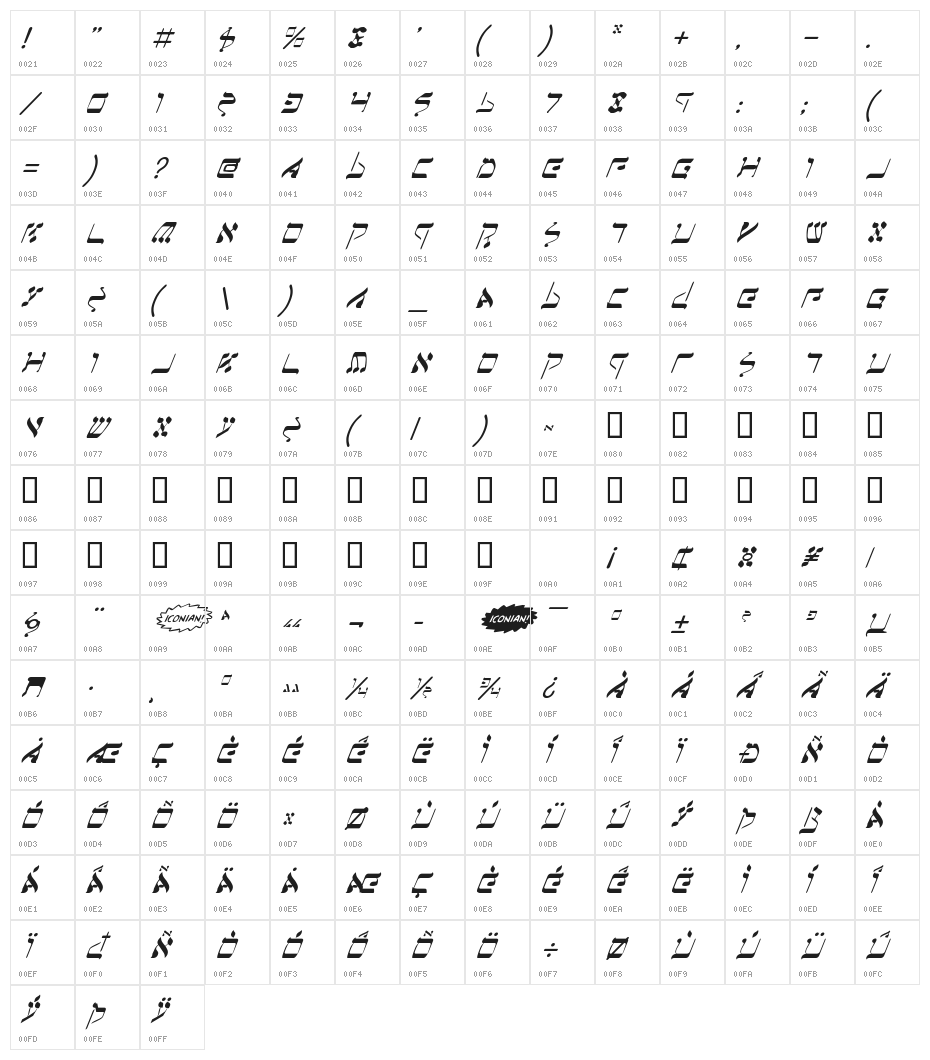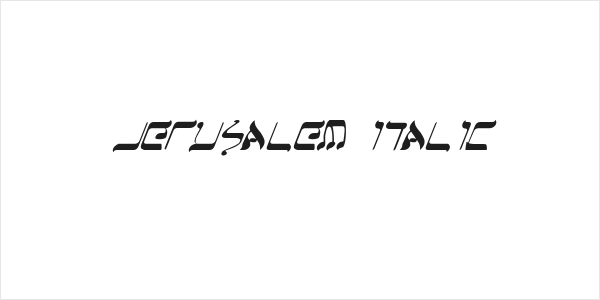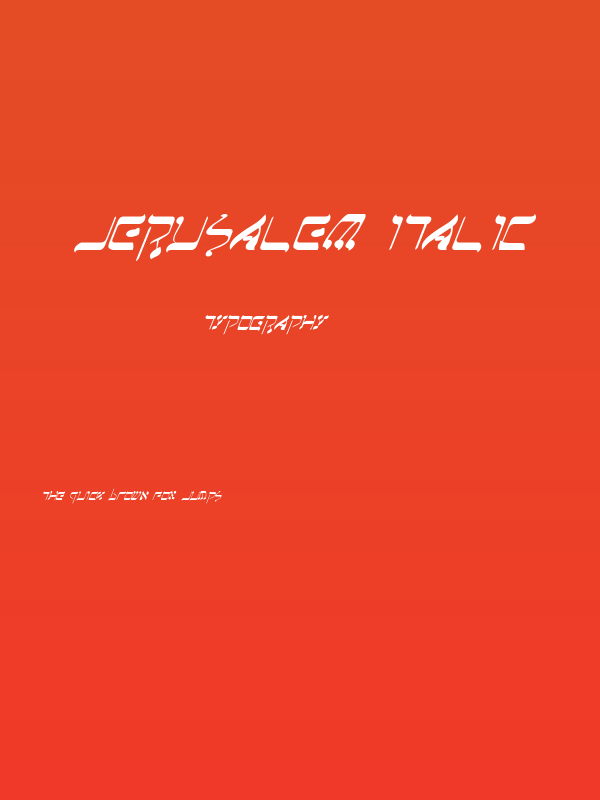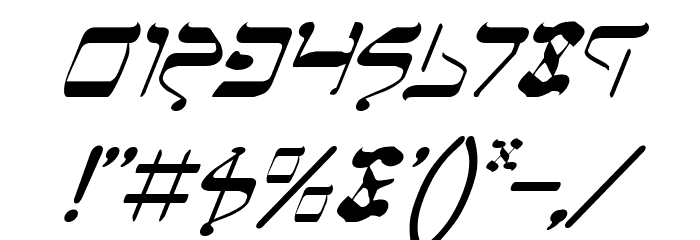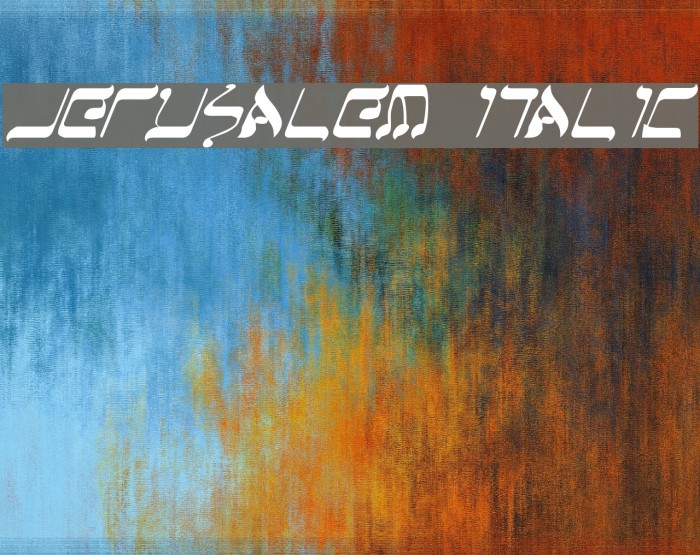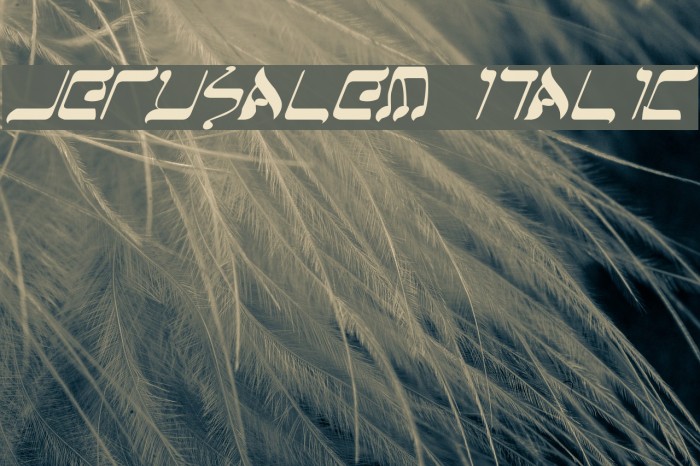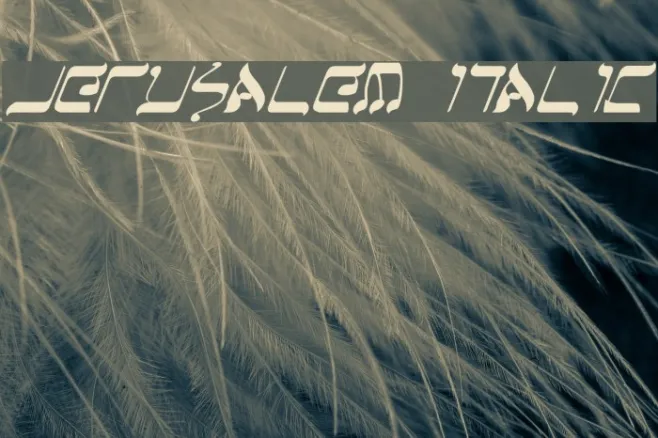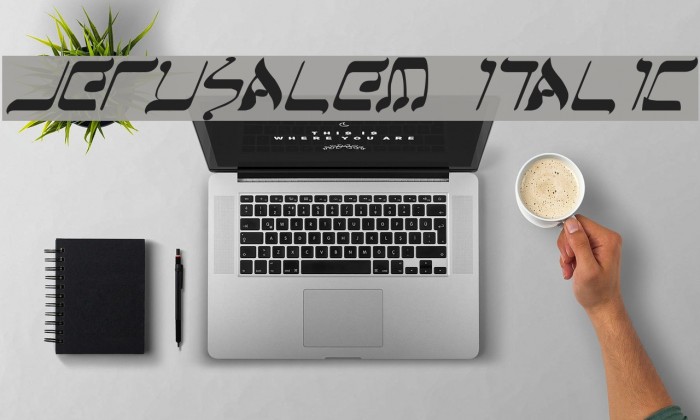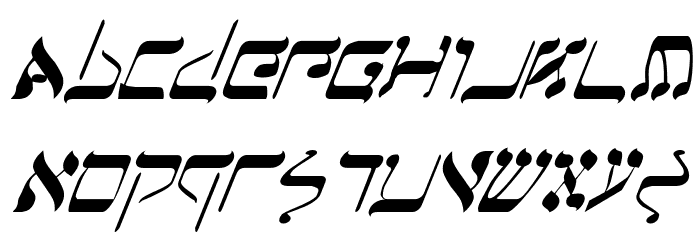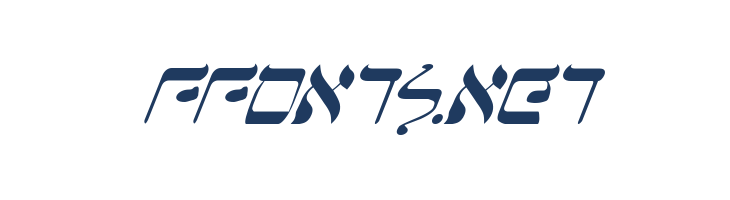
Jerusalem Italic Font
Jerusalem Italic Description
This font features a unique and artistic design that combines elements of both modern and traditional styles. The characters are italicized with a distinct slant, giving them a dynamic and fluid appearance. The strokes are bold and angular, with sharp edges and pointed terminals, creating a sense of movement and energy. The font has a high contrast between thick and thin strokes, adding to its dramatic and eye-catching look. The overall style is decorative, making it suitable for projects that require a bold statement or artistic flair.
| Proposed Projects | Ideal for use in logos, headlines, posters, and artistic projects that require a striking and unique typeface. |